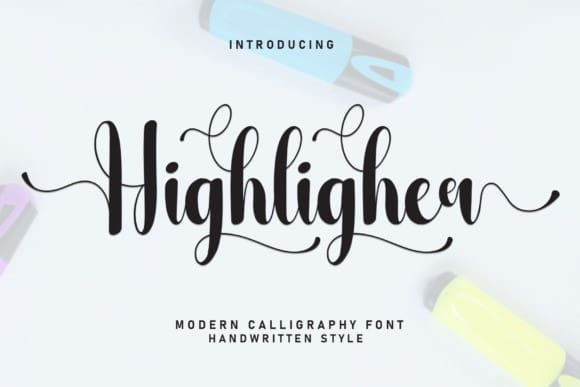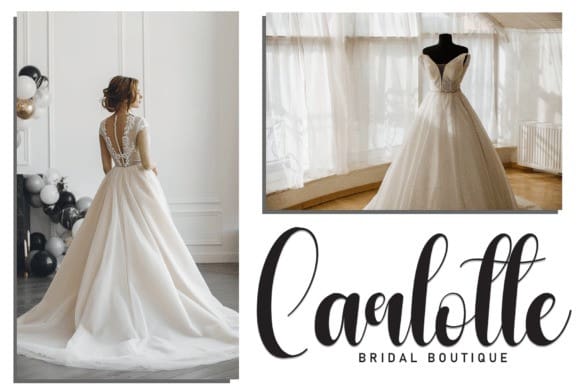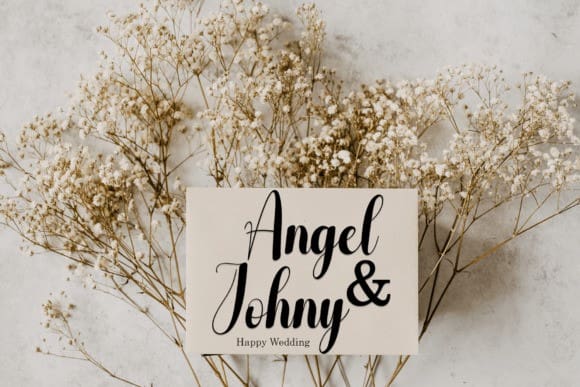
Highligher Script Font
Highligher Script Font is a sweet and friendly handwritten font. Fresh and casual, this font is ideal for writing wedding invitations, cards, or any other design that might need a lovely touch.